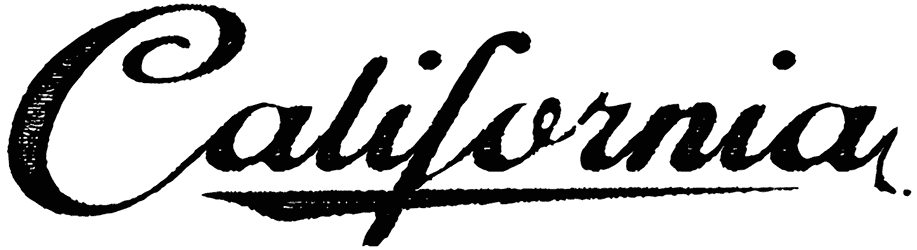
California Font
With a classic calligraphy style, this option can be a perfect choice to make your design different. As an old school font, California is able to bring a royal vibe to your words with its hand-lettering form.
This surf font doesn’t support numbers and most punctuation, but you can use it for many novel projects, namely posters, logos, or whatnot, and show off your creative mind.